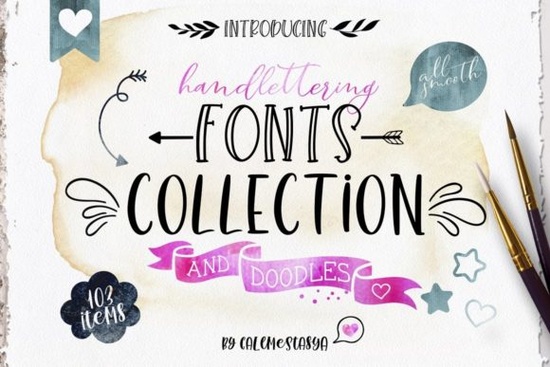
If you've been looking for a single download that covers a wide range of creative styles, the Handlettering Fonts Collection Font bundle is worth a closer look. It packs 12 fonts plus doodle elements into one package, giving you everything from modern calligraphy to clean sans serif options. Whether you design wedding invitations, sell print-on-demand products, or create social media graphics for a small business, this collection saves you from buying fonts one by one. You can find the full listing for the Handlettering Fonts Collection Font on Creative Fabrica.
What Fonts Are Included in This Collection?
This bundle is surprisingly varied for a single purchase. Here's the full list:
- Bali Night modern calligraphy script
- Bali Night Italic italic version of the calligraphy script
- Beachy Girl cute script font
- Beachy Girl Italic italic cute script
- Bread and Tomato all-caps serif
- Peach Pie cute sans serif
- Peony and Lemon decorative all-caps font
- Rock Beach decorative display font
- Tomato and Basil mix of uppercase and lowercase
- Tomato and Basil Sans Serif clean sans serif version
- Lemonights script font (no numbers or punctuation)
- Lemonights Italic italic script version (no numbers or punctuation)
- Doodle elements for decoration
The variety here means you're not locked into one aesthetic. You can create a rustic bakery logo with Bread and Tomato in the morning and design tropical-themed party invitations with Bali Night in the afternoon all from the same download.
Who Is This Font Bundle Best For?
This collection works well for several types of creatives:
- Print-on-demand sellers who need fresh fonts for t-shirt designs, mugs, and tote bags without spending hours searching for individual typefaces.
- Wedding and event stationery designers looking for handlettering styles paired with complementary sans serif and serif options.
- Small business owners creating their own branding, menu designs, or packaging.
- Crafters using Cricut or Silhouette machines who need fonts that cut cleanly.
- Social media managers who want hand-drawn style fonts for Instagram posts, stories, and Pinterest graphics.
Having multiple styles in one place also makes it easier to keep a consistent brand look across different materials. If you want even more variety, you might also want to browse through our all-in-one font bundles that cover a broader range of projects.
How Do These Handlettering Fonts Work Together?
One of the best things about this collection is that many of the fonts are designed to pair naturally with each other. Here are a few combinations worth trying:
- Lemonights + Tomato and Basil Sans Serif Since Lemonights doesn't include numbers or punctuation, using Tomato and Basil Sans Serif alongside it fills that gap while keeping the look cohesive.
- Bali Night + Peach Pie Pair the flowing calligraphy with the clean sans serif for a design that feels elegant but readable.
- Bread and Tomato + Beachy Girl Combine the bold all-caps serif header with a playful script for product labels or greeting cards.
- Peony and Lemon + Rock Beach Both decorative styles, but they work well for bold headers and quote posters when used at different sizes.
The included doodle elements are a nice bonus. You can drop them around text to create a hand-drawn feel without having to draw anything yourself. They work especially well for social media graphics, stickers, and scrapbook-style layouts.
There are a couple of details worth noting before you start designing:
- Lemonights and Lemonights Italic don't come with numbers or punctuation marks. Plan to pair them with another font from the collection like Tomato and Basil Sans Serif when you need those characters.
- Bread and Tomato and Peony and Lemon are all-caps only. This works great for headers and logos, but keep it in mind if you need lowercase letters for body text.
What Can You Create With These Fonts?
Here are some real project ideas to get you started:
- T-shirt designs Use Rock Beach or Tomato and Basil for bold quote tees that stand out on marketplaces.
- Wedding invitations Bali Night gives you that classic handlettering look without hiring a calligrapher.
- Recipe cards and cookbooks The food-themed names aren't just cute; Bread and Tomato and Basil genuinely suit food-related designs.
- Logo design for small businesses Pair Beachy Girl with Peach Pie for a friendly, approachable brand identity.
- Wall art and prints Combine Peony and Lemon with the doodle elements for decorative prints to sell on Etsy.
- Social media templates Mix script and sans serif fonts from this collection to create reusable templates for Instagram or Pinterest.
- ✅ Note which fonts are all-caps only (Bread and Tomato, Peony and Lemon)
- ✅ Remember that Lemonights needs a companion font for numbers and punctuation